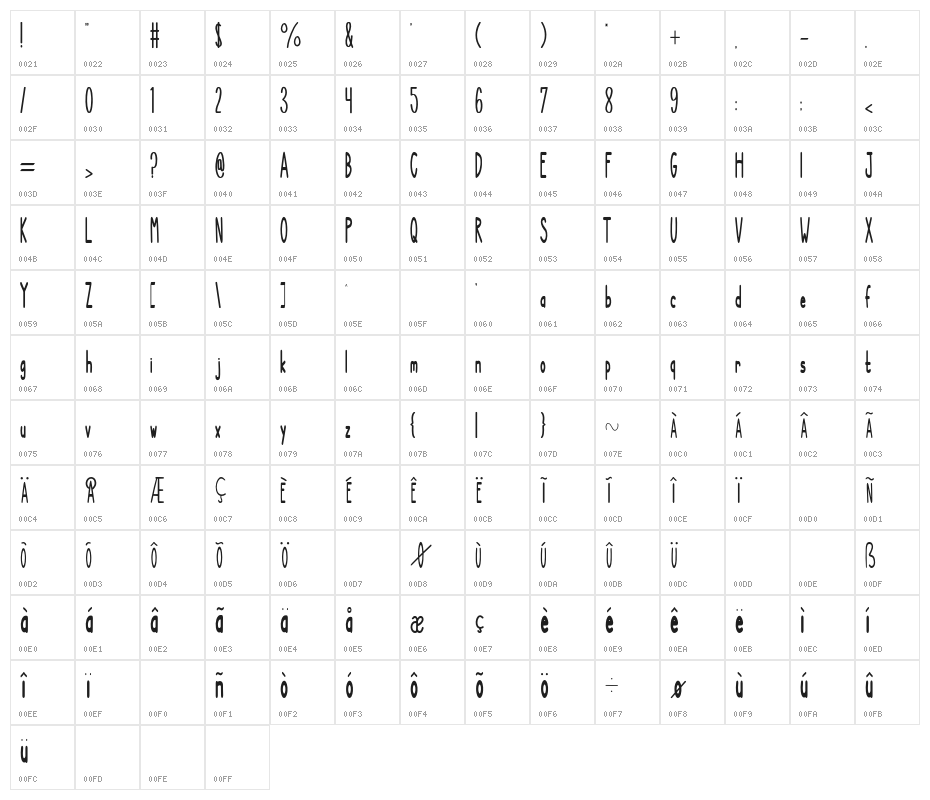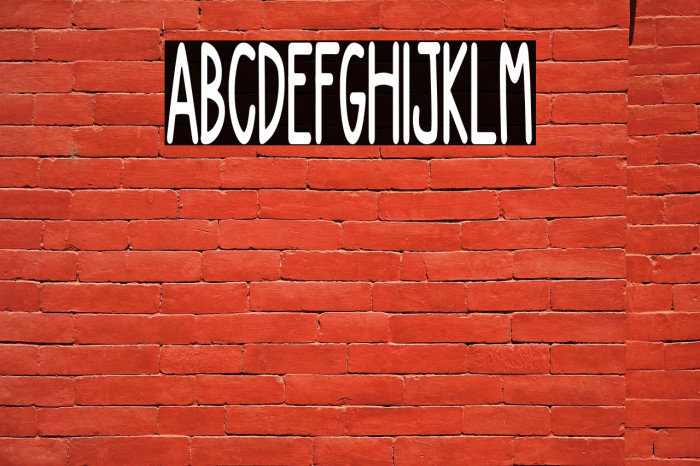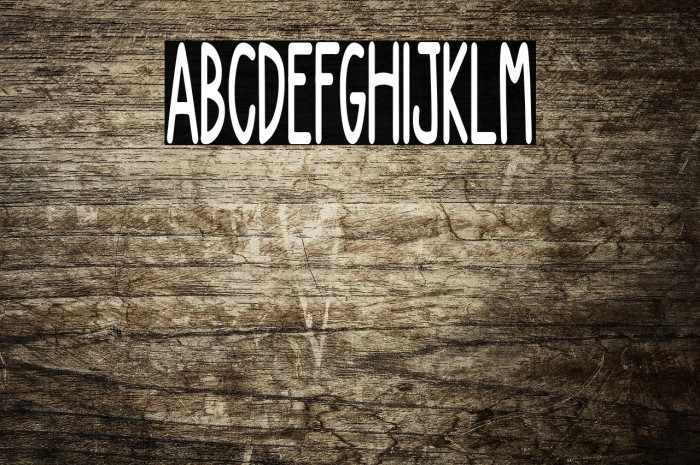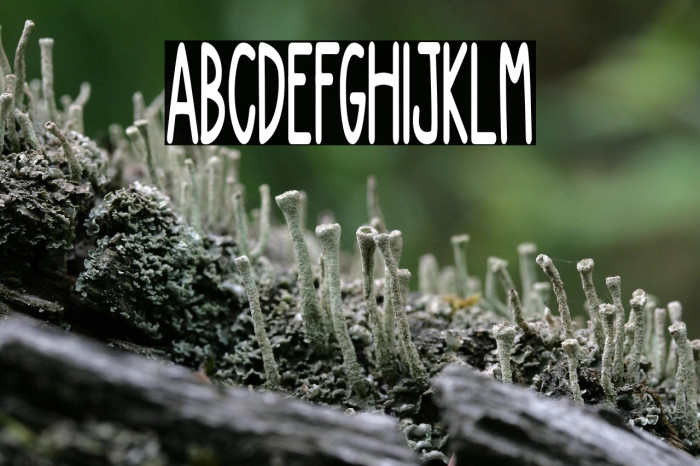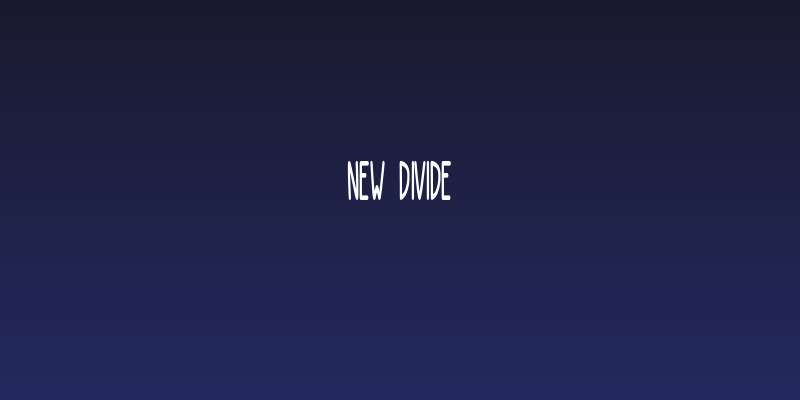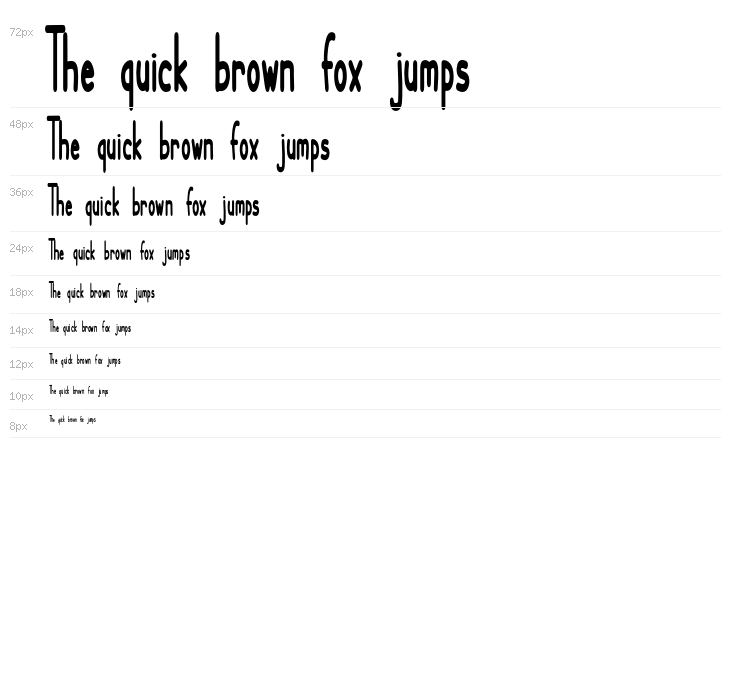
NEW DIVIDE Font
NEW DIVIDE Description
This font features a playful and informal style with a handwritten appearance. The characters are tall and narrow, giving a sense of height and energy. The strokes are consistent in thickness, providing a uniform look across all letters and numbers. The font includes both uppercase and lowercase letters, as well as numerals and a variety of special characters. Its casual and friendly design makes it suitable for projects that require a personal touch or a fun, approachable aesthetic.
| Width | Condensed |
| Overall Style | Casual |
| Use Case | Headlines, Informal text, Branding |
| Proposed Projects | Ideal for children's books, greeting cards, posters, and informal branding. |